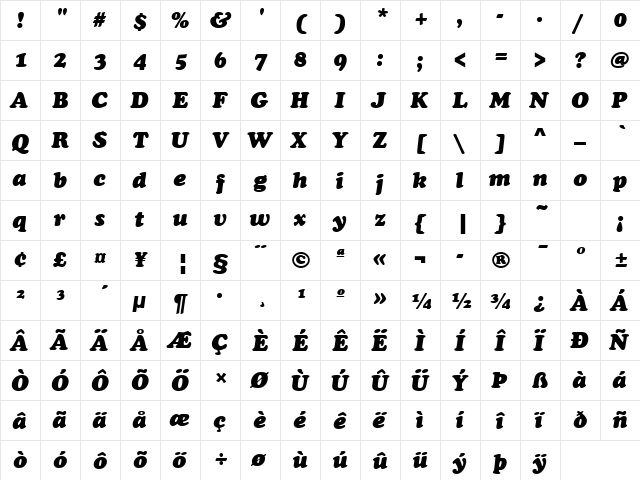
CooperBlaDBol Italic Font Preview
CooperBlaDBol Italic
Design Context for CooperBlaDBol Typeface
CooperBlaDBol is a composed and adaptable typeface that performs quietly and consistently across a wide range of design contexts. The slanted form adds forward momentum and visual energy.
Pro Tip: Use CooperBlaDBol for emphasis, pull quotes, and subheadings where its slanted energy can add rhythm to the layout.